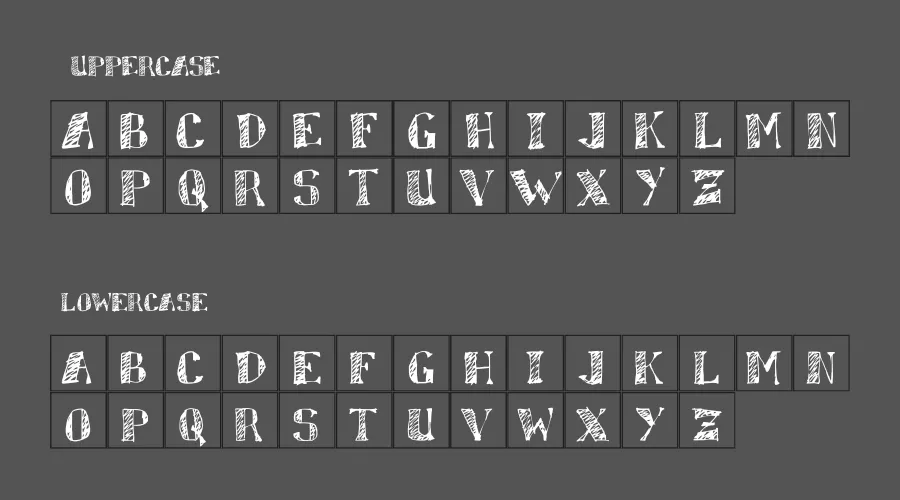
Sketchy Font
About Sketchy Font
Sketchy Font is created by deFaced it’s a Fancy typeface. Definitely one of the most amazing typefaces for inspiring enjoyment for older times with the free version.
It’s an all-caps font, but it’s also renowned for its headline formatting and wrapping. If someone has noticed it using lowercase the characteristic is the same as ancient glyphs.
The typeface is a fantastic choice for print projects as well. This font works well in both roman and common designs. Among the numerous typefaces used it is the best choice for designs.
Beautiful characters made up of uppercase and lowercase letters, numbers and numerals, standard punctuation, special characters, and special symbols are included in this TrueType font.
You may also create a lot of enjoyable, amusing logos that the users will get benefit from. This typeface is suitable for CSS and Adobe apps, and it may be used for screens of any size. It was created by a designer with amazing skill and sophistication.
While being excellent for designing logos, greeting cards, cartoon graphics, garments, storybook covers, mugs, home decor, product advertisements, branding, creating new products, T-shirt styles, social media posts, billboards, etc.
Name Sketchy Font
Designer deFaced
Style Fancy